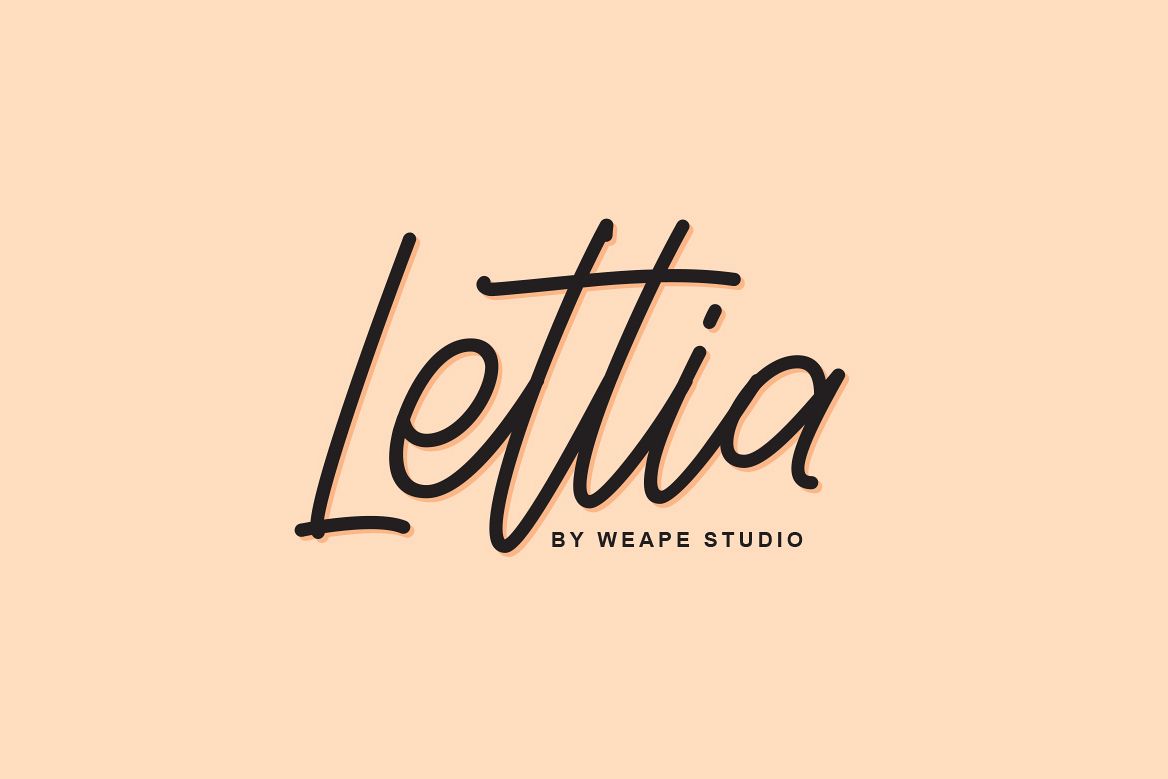
Lettia
Lettia-Script
Introducing the new script font called Lettia.
With unique monoline style for your daily and project needs ex: logo, fashion, apparel, photography, watermark, quotes, blog header, poster, wedding, invitation, stationery, branding, letter, etc. Lettia comes with several stylistics, ligatures and swashes.
Foreign languages support: ÀÁÂÃÄÅÆÇÈÉÊËÌÍÎÏÐÑÒÓÔÕÖØÙÚÛÜÝàáâãäåæçèéêëìíîïðñòóôõöøùúûüýÿ